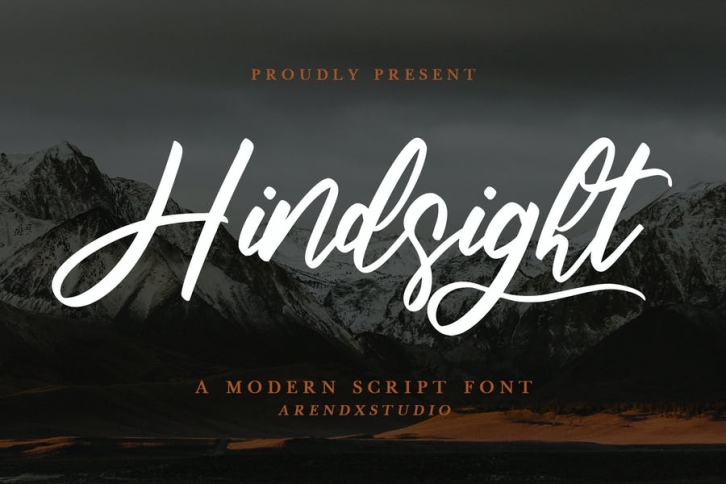
Hindsight - Modern Script Font is a font with distinctive handwritten characters perfect for branding projects, logos, wedding designs, media posts, advertisements, product packaging, product designs, labels, photography, watermarks, invitations, stationery, and any project who need handwritten dishes.